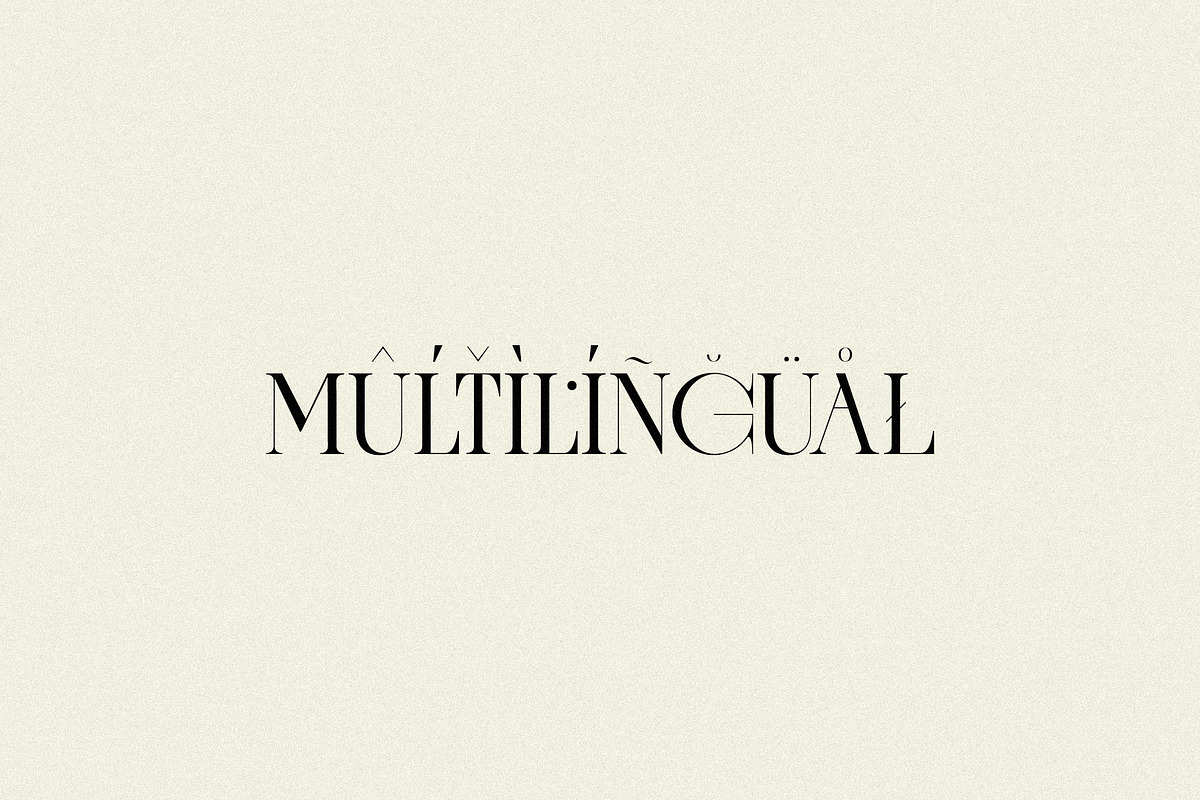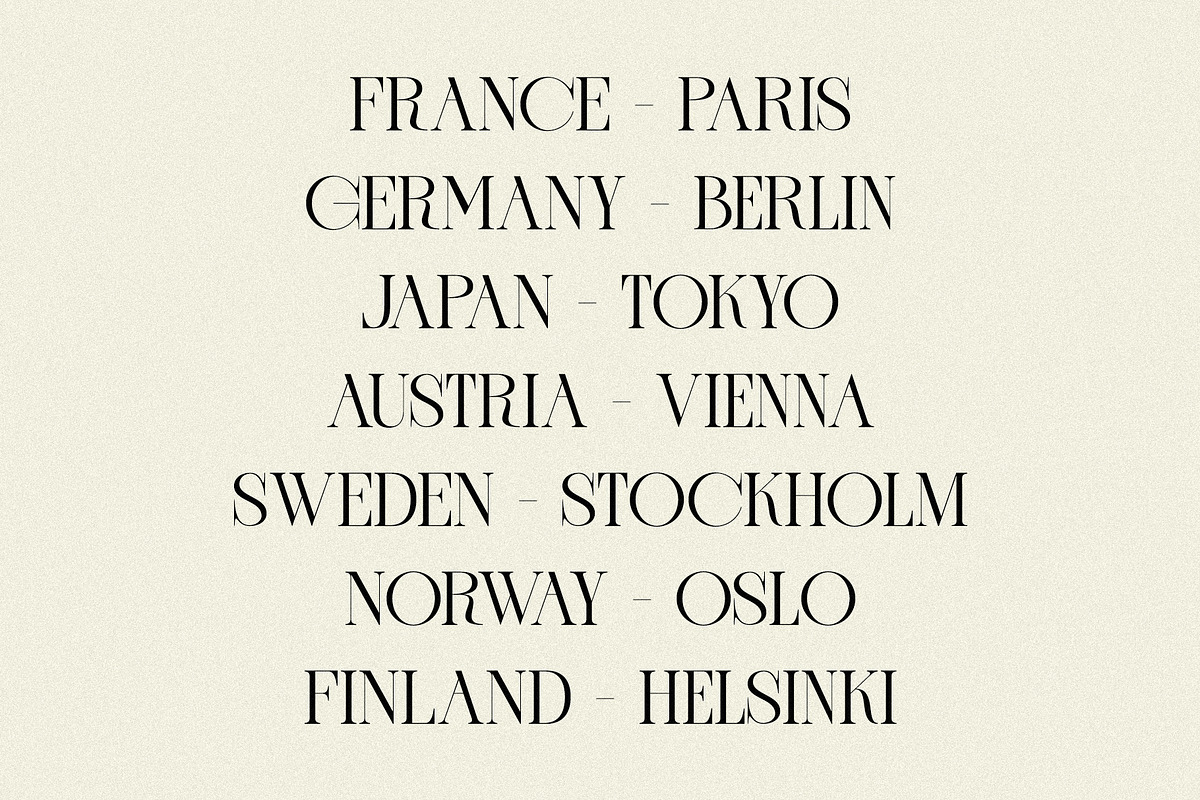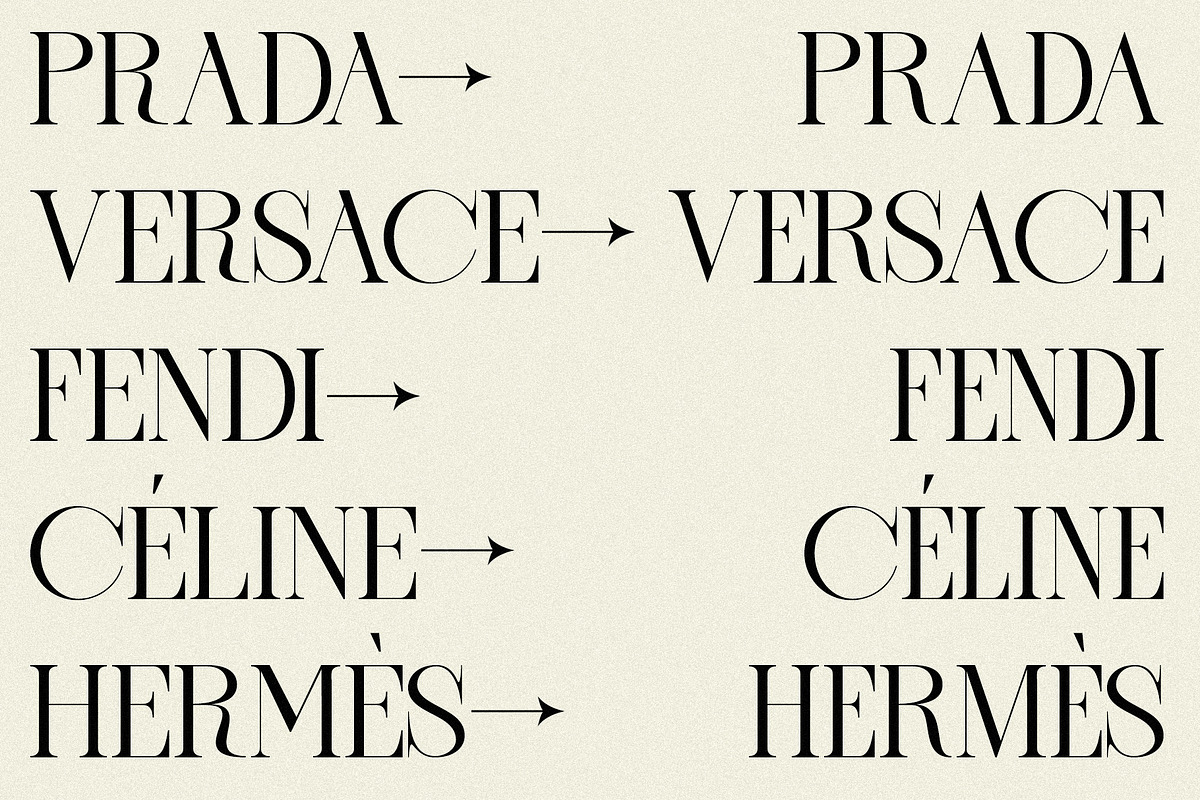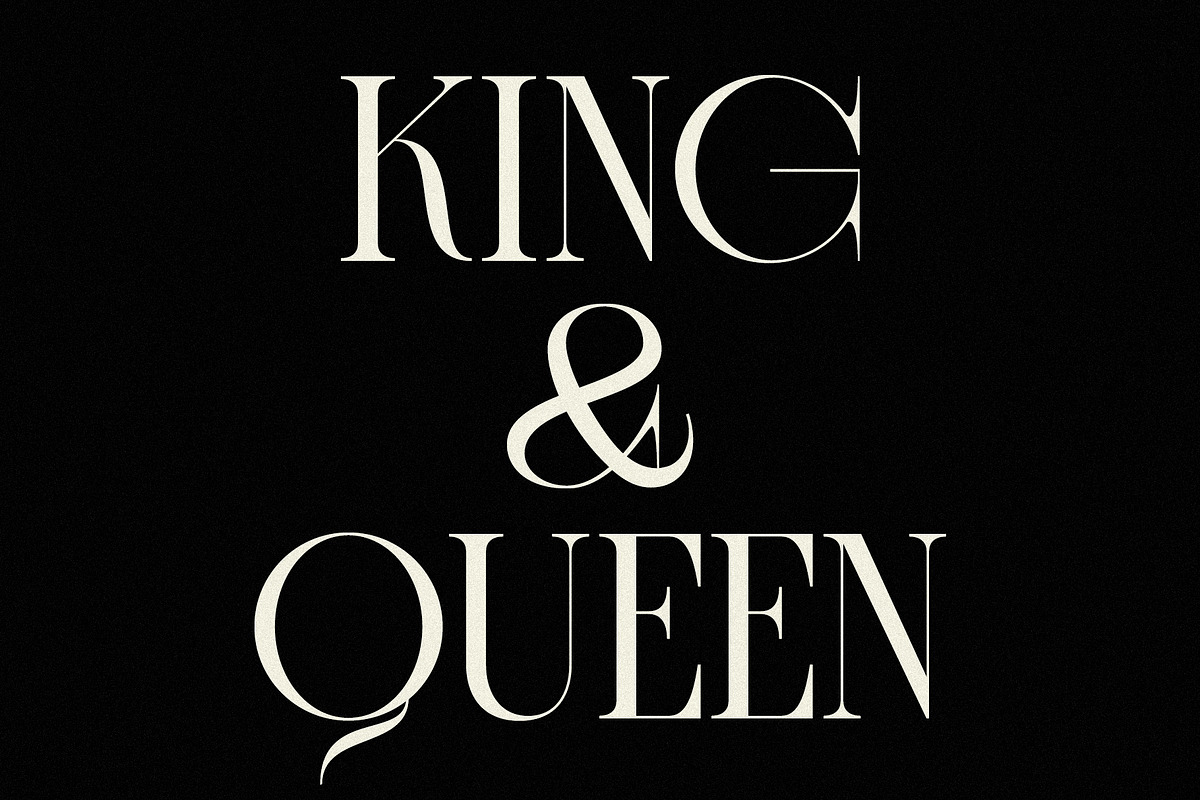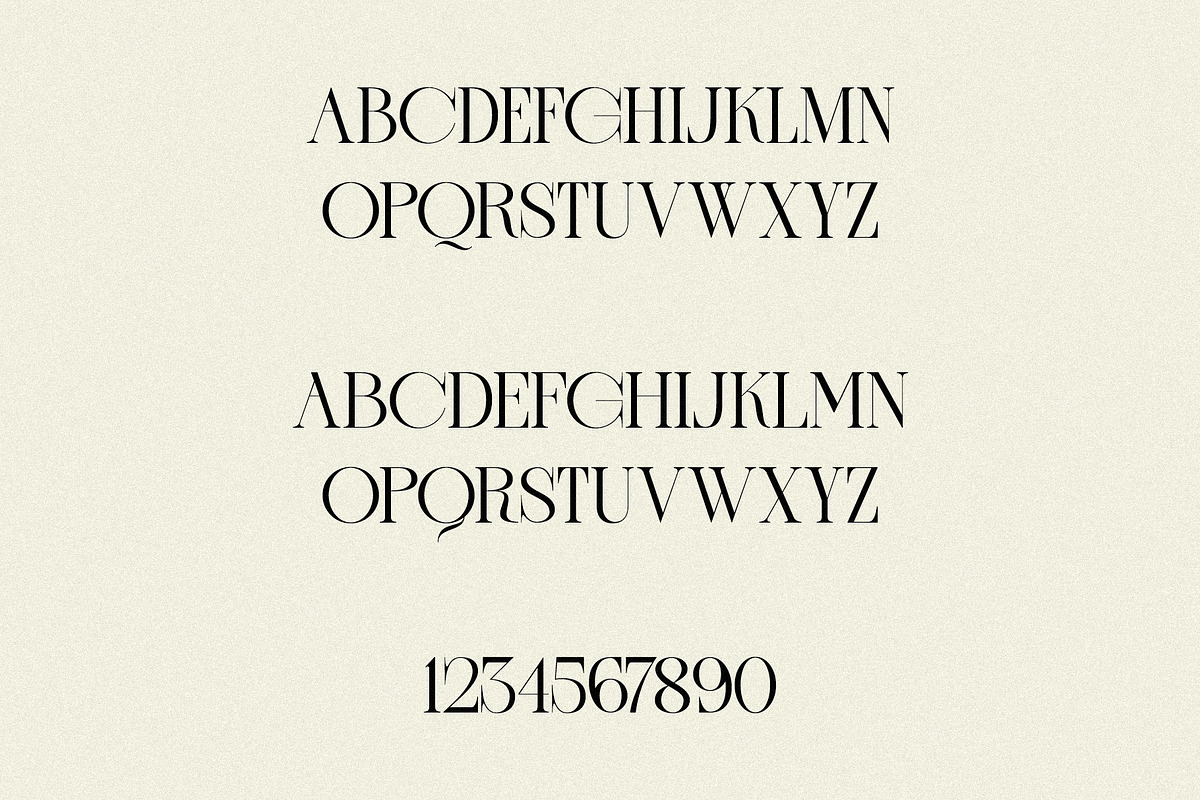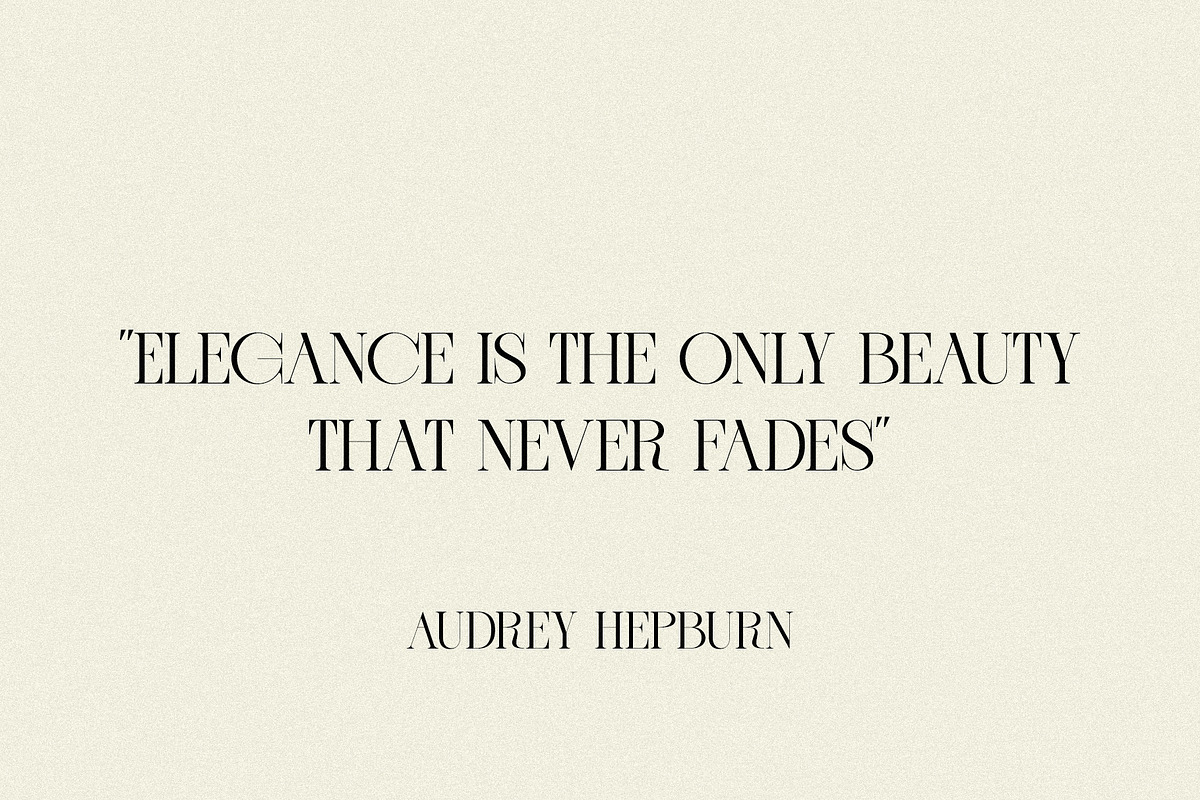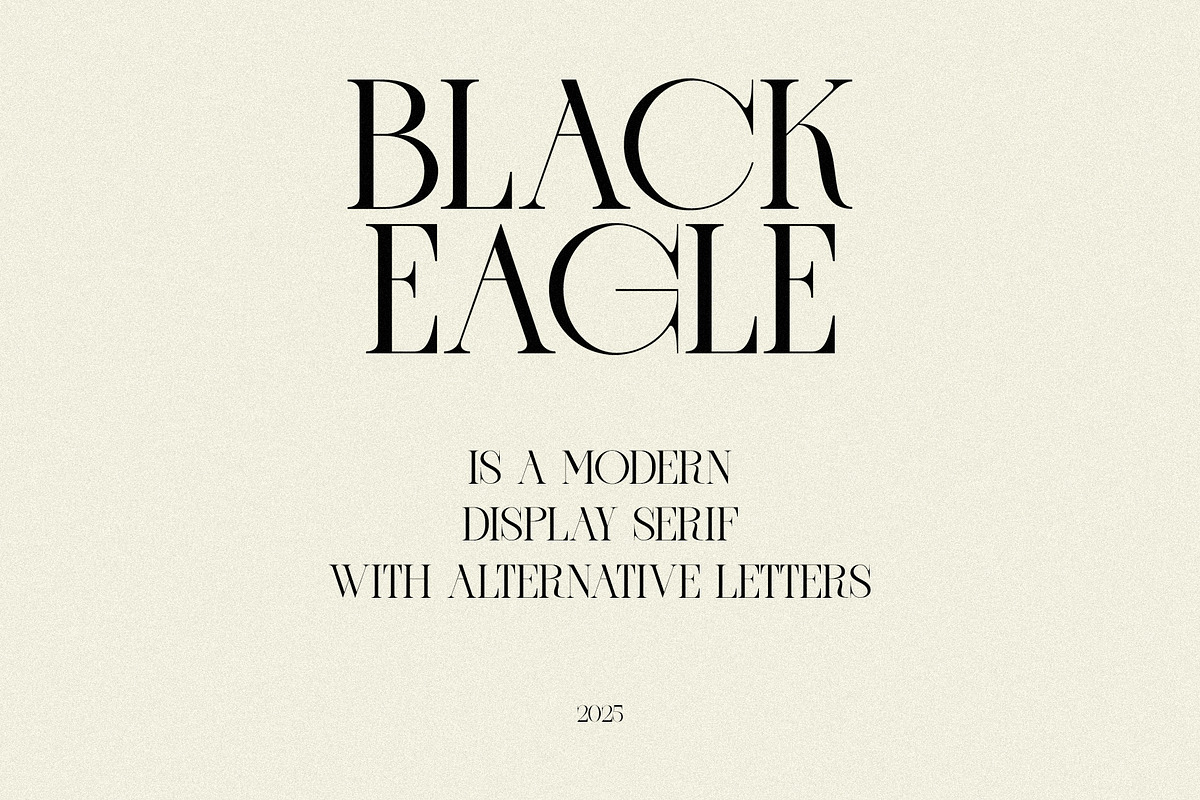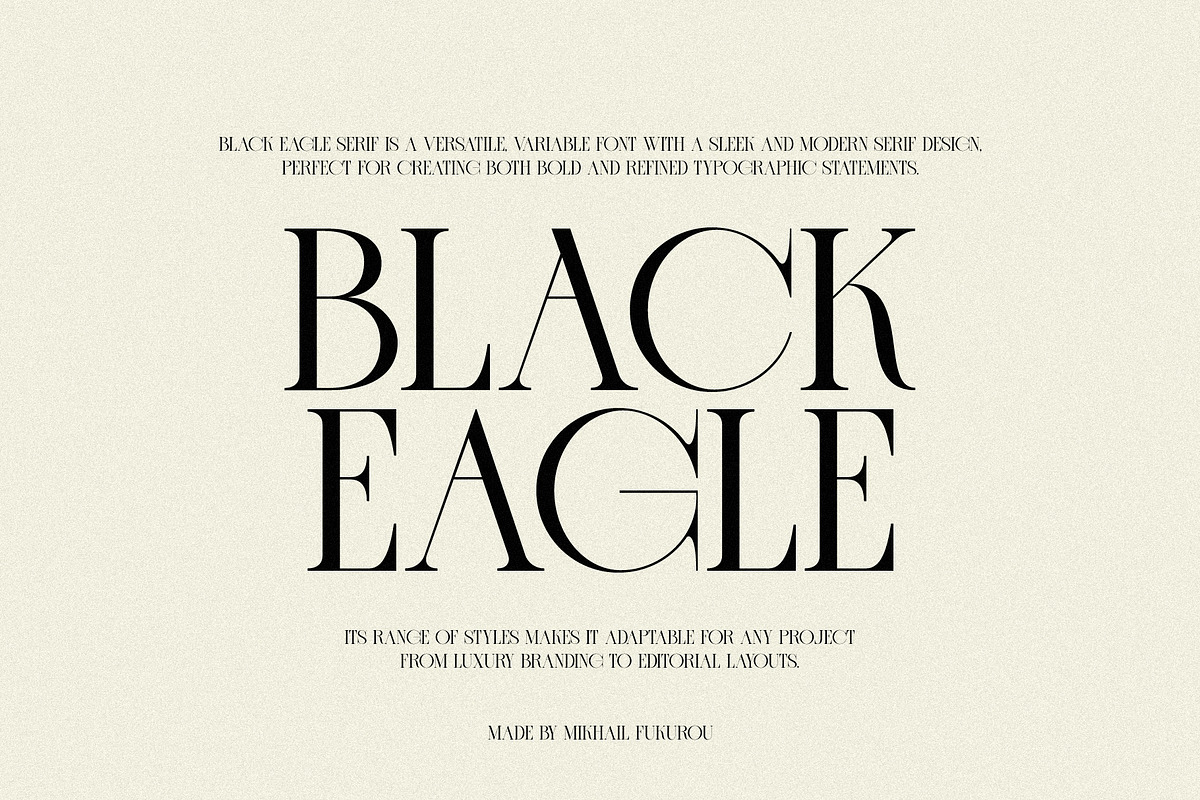
BLACK EAGLE - Modern Display Serif
Black Eagle Serif is a sophisticated and dynamic variable font that blends modern elegance with timeless design. Featuring a sleek serif structure, it offers a wide range of styles, from delicate thin to bold and expressive, allowing designers to seamlessly transition between contrasting visual tones. The font’s versatility shines in both print and digital environments, making it ideal for high-end branding, editorial layouts, websites, and more. With its refined letterforms and variable design, Black Eagle Serif can adapt to various creative needs while maintaining a sense of strength and precision.